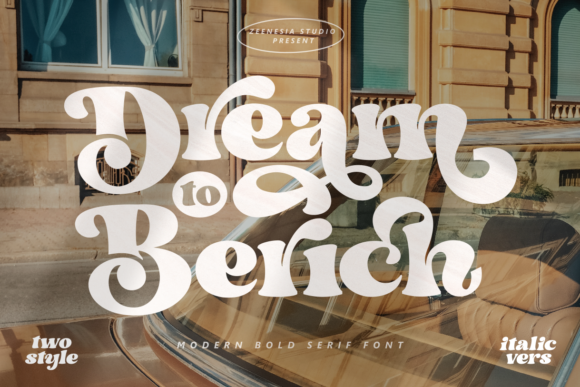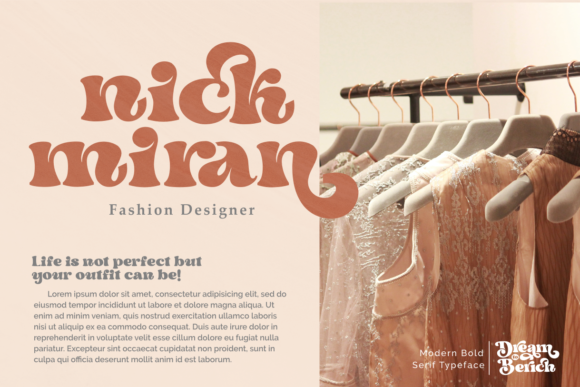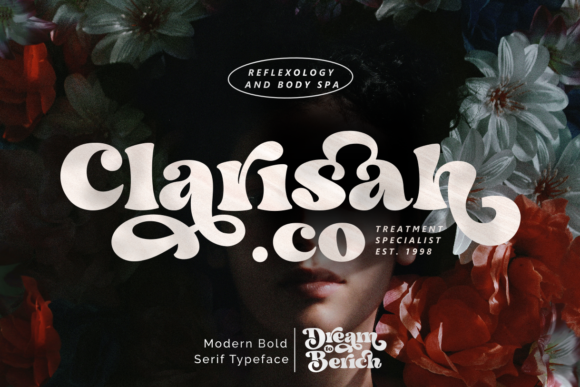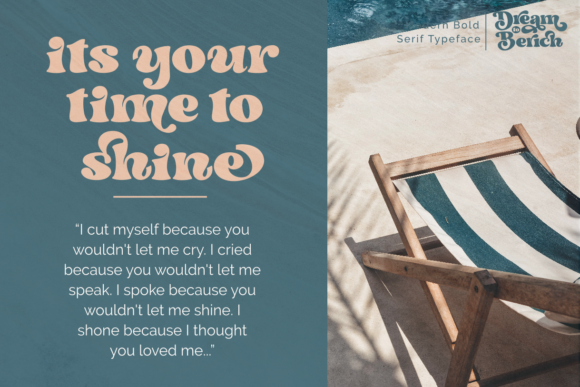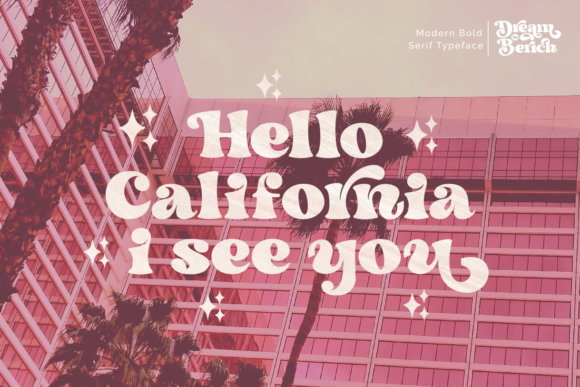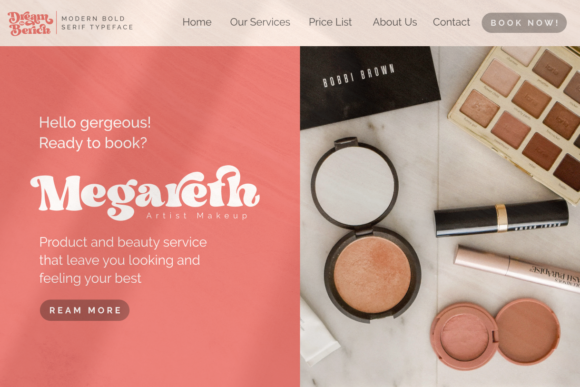
Introduction to Dream to Berich Font Font
Have you ever been working on a creative project, pouring your heart and soul into it, only to feel like something is missing? That’s exactly how I felt the day I discovered the Dream to Berich Font Font. This stylish and trendy serif font is more than just a design resource – it’s a game-changer.
As a designer, you know how valuable it is to have high-quality design resources at your fingertips. The Dream to Berich Font Font is a must-have for anyone looking to take their creative projects to the next level. And with its transparent background, you can use it with ease, even on projects with complex backgrounds.
Key Features of Dream to Berich Font Font
- High-quality, professional design suitable for various creative projects
- Designed with a unique, elegant style that adds a touch of sophistication to any creative project
Honest Review: Dream to Berich Font Font
I recently had the chance to use the Dream to Berich Font Font in a creative project and I must say, I was impressed. This font has a lot of character and can add a unique touch to any design. One of the things that stood out to me was the high quality of the font. It’s clear that the designer put a lot of effort into creating a beautiful and professional-looking font.
- High quality design
- May not be suitable for extremely formal designs
- Some users may find the font too bold or overpowering
Overall, I would highly recommend the Dream to Berich Font Font for any design project. It’s a great resource that can add a unique touch to your designs. Just be aware of its limitations and use it accordingly.
How to Use Dream to Berich Font Font
Common Use Cases for the Dream to Berich Font Font
The Dream to Berich Font Font is ideal for a wide range of creative projects, including:
- Social media graphics and advertisements.
- Presentations and documents.
- Logos and business cards.
- Infographics and data visualizations. Alternatives to Dream to Berich Font Font
Q: Is the Dream to Berich Font Font suitable for use in high-resolution designs?
Yes, the Dream to Berich Font Font is a high-quality design resource that is suitable for use in high-resolution designs. It is optimized for use at large font sizes and high resolutions, making it perfect for use in creative projects such as posters, billboards, and digital signage.